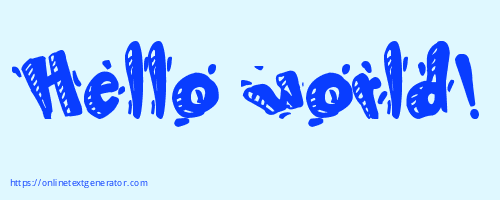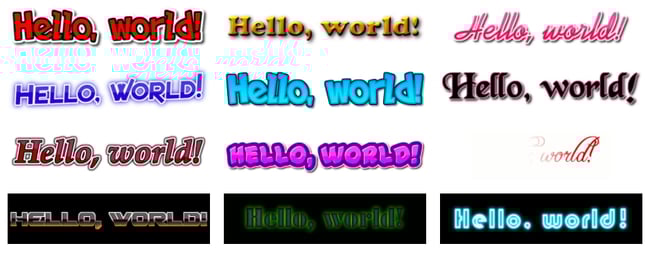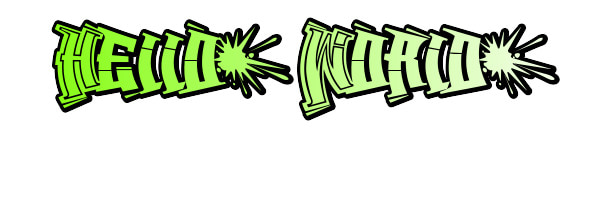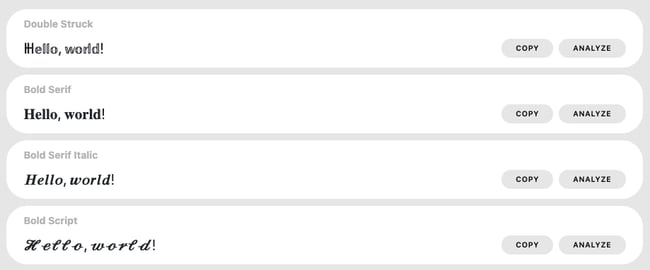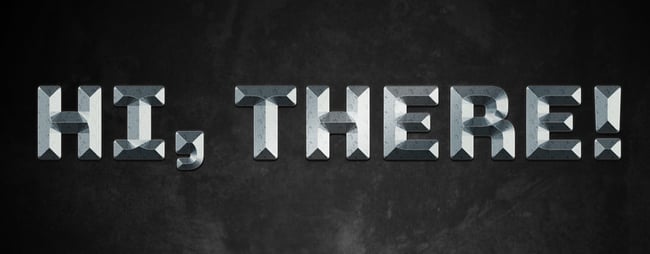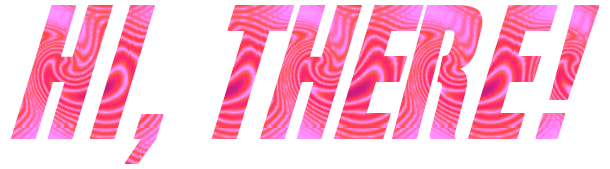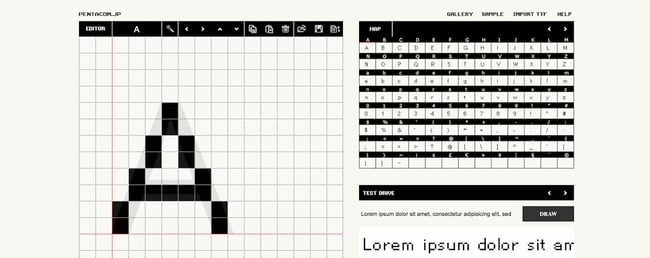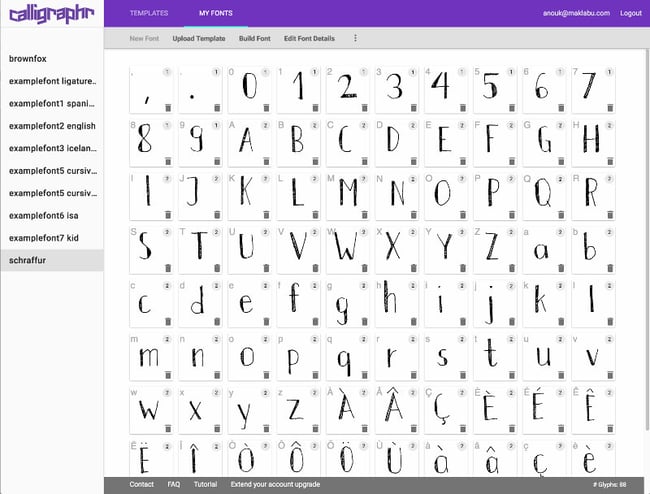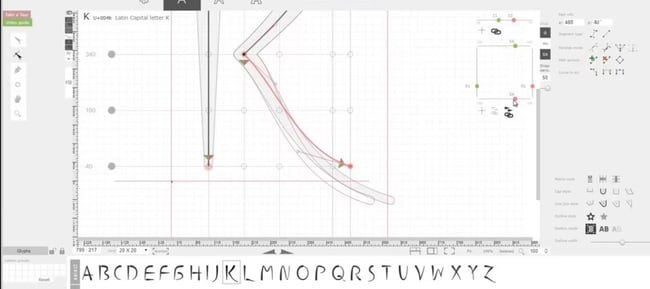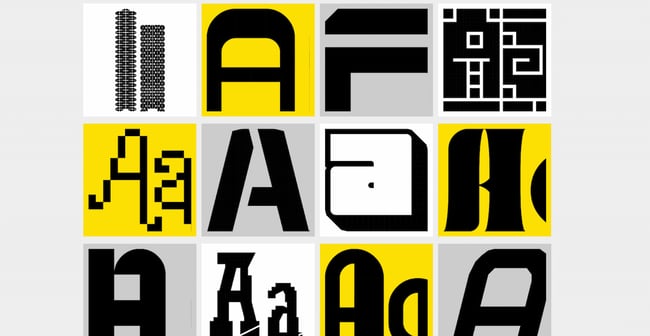
Thanks to online font generators, you can add a custom typeface to your website even if you don't have an in-house team of typographers or the budget to hire one.
With these tools, you can simply type in some text, pick the colors and effects you want, and generate the font file with the click of a button.
Let's take a look at the best font generators that don't cost anything to use. But first, why should you consider using a font generator over, say, Google Fonts?
Why use an online font generator?
Font is an important part of web design. Even if we don't consciously notice how letters and characters are designed and arranged on a web page, they impact our experience. The art of designing and arranging type is known as typography, and it's something that brands think about a lot.
from Helvetica Neue to a custom typeface they designed in-house and named "San Francisco.¡±
Chobani also rolled out a new typeface as part of its rebrand.
Both of these changes made text more readable across their products and strengthened their brand identity. While Google Fonts is a fantastic place to start, millions of brands have access to it, meaning that using a Google Font won¡¯t differentiate you.
Creating a custom font, however, will. And the best part is that you can do it for free. Simply use a free online font generator ¡ª we¡¯ve listed the top ones below.
If you want to create a custom font for your website, Fontstruct is one of the best options that allow you to do so entirely for free. Once you create your font, you can download it as a TrueType file and use it anywhere ¡ª including your website.
You don¡¯t have to start from scratch, either. You can browse through and adjust them to fit your brand imagery and aesthetic. Keep in mind that a service like this one is difficult to come by for free. If you wanted to create your own custom font, you¡¯d typically have to hire a graphic designer, who would then create that font in a tool such as Adobe Creative Cloud or .
Fontstruct is an excellent option for creating custom font-faces entirely for free. It¡¯s especially best suited for those who are looking to create quirky, geometrical fonts. Fonstruct¡¯s font creations are ideal for use on websites, brochures, and other print materials, but they¡¯re not ideal for use in social media captions and posts.
Calligraphr is an online font generator that can help you create a TrueType font for use on your website or mobile app. While it does offer a premium option, the free version comes with all the tools you need to upgrade your website¡¯s typography.
You can create an unlimited number of fonts, include up to 75 characters, and randomize the design of your letters ¡ª meaning that you can create a true handwriting-like font, because each letter will look just slightly different from the last.
Best For
Calligraphr is a powerful online font generator that¡¯s especially suited to creating handwriting-like fonts because of its character randomization feature. We recommend using your Calligraphr-generated fonts on your website, app, or print collateral, but not on social media captions.
3.
BitFontMaker is a free online font generator that¡¯s optimal for creating pixelated fonts. It¡¯s flexible, and its -style of font creation is fun to use. We highly recommend using this tool to get acquainted with font design, even if you ultimately end up choosing another tool on this list.
There are several methods you can use to create a font with BitFontMaker. You can begin with the shaded blueprint for each letter, which the tool offers automatically so you don¡¯t have to guess where to put each pixel. You can also start with a sample font and then work from there. Or you can browse through and adjust them for your own website.
Best For
BitFontMaker is an excellent online font generator for those who run tech-oriented websites, since the pixelated font is reminiscent of low-resolution pixels. It¡¯s also a fantastic choice for those who run a blog about video games, fantasy, or entertainment. We don¡¯t recommend it for use in small screens, such as mobile apps, due to its stylized look.
Customizing the Font on Your Website
Using any of the font generators above, you can create a custom font for your logo, web pages, or social media platforms ¡ª without needing to know anything about Photoshop, vectors, or any complex web design topics. Instead, you can get the exact font you want in a few clicks. When you're done customizing your font, you can turn your attention to generating leads from the beautiful content you're creating.